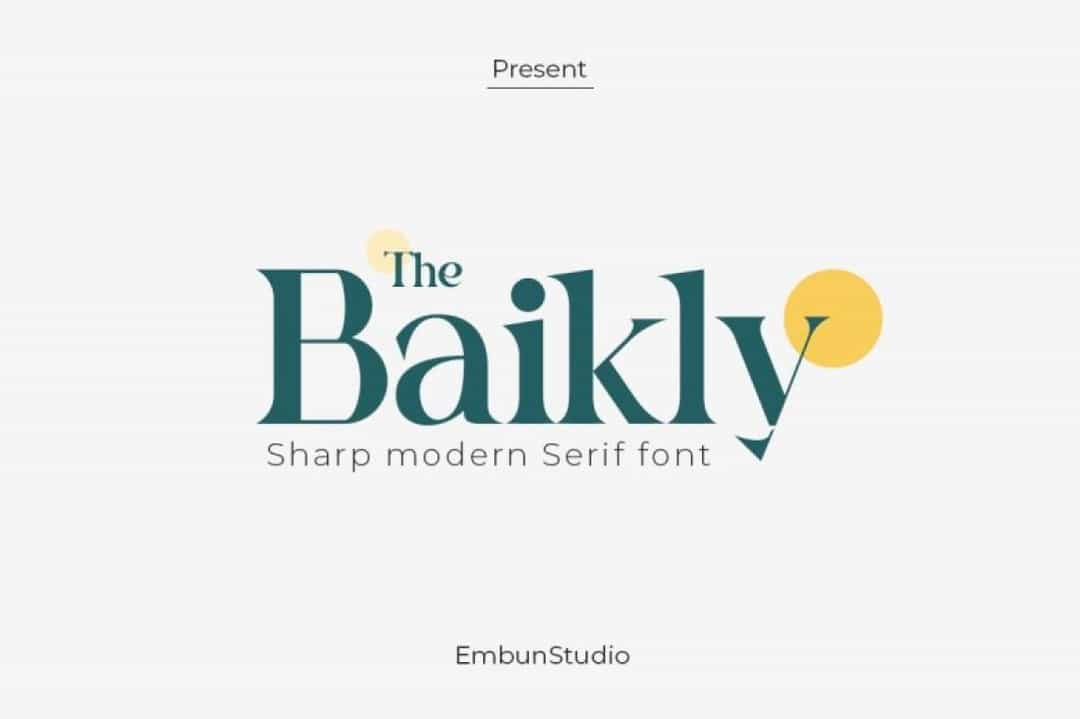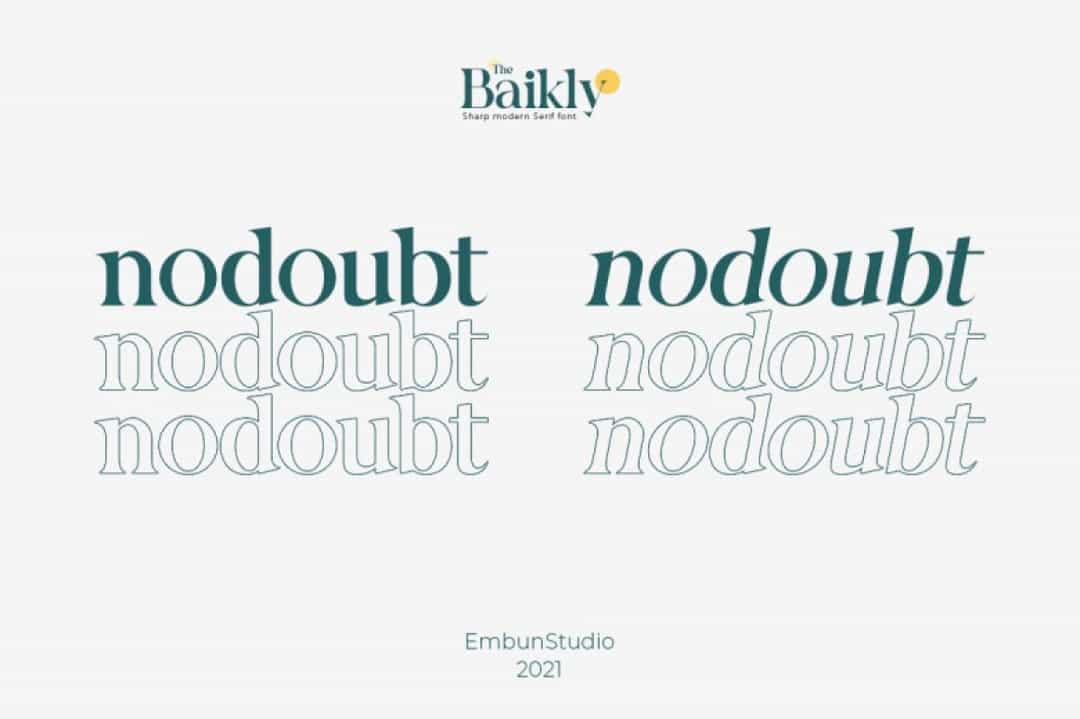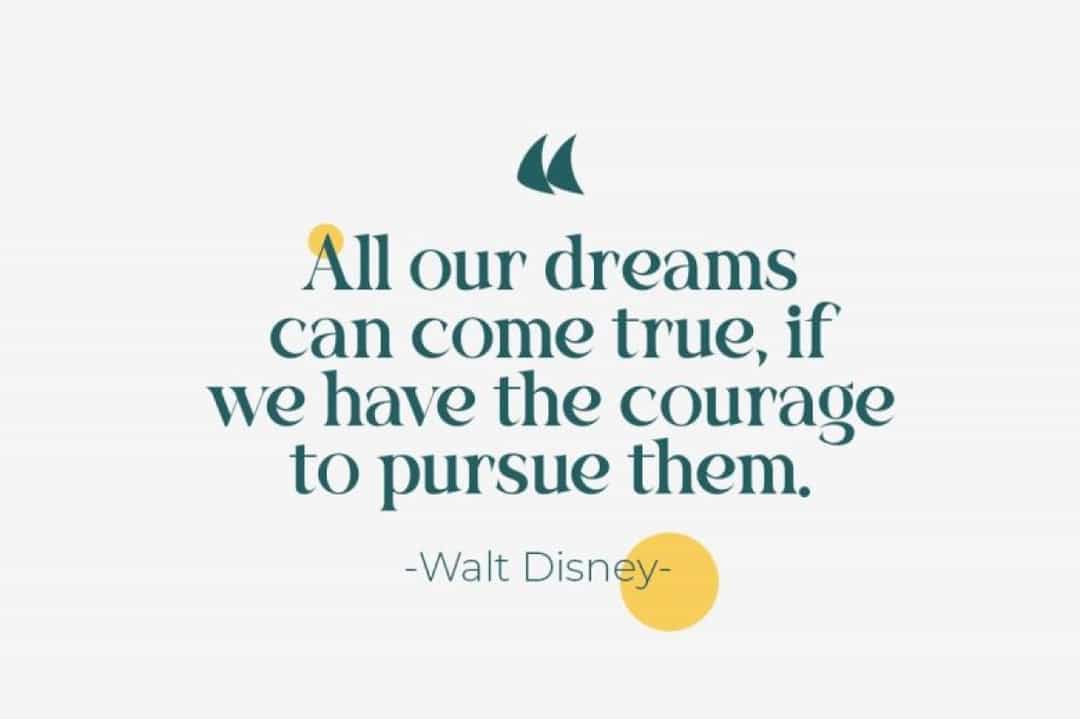
Baikly Serif Font is inspired by Baikal Lake in Russia – its deepest and longest lake, boasting breathtaking scenery that will entice anyone’s eyes. My hope is that this font will enhance every project further while captivating anyone who comes into contact with it – just wait till you see this font come to life in your project!!!